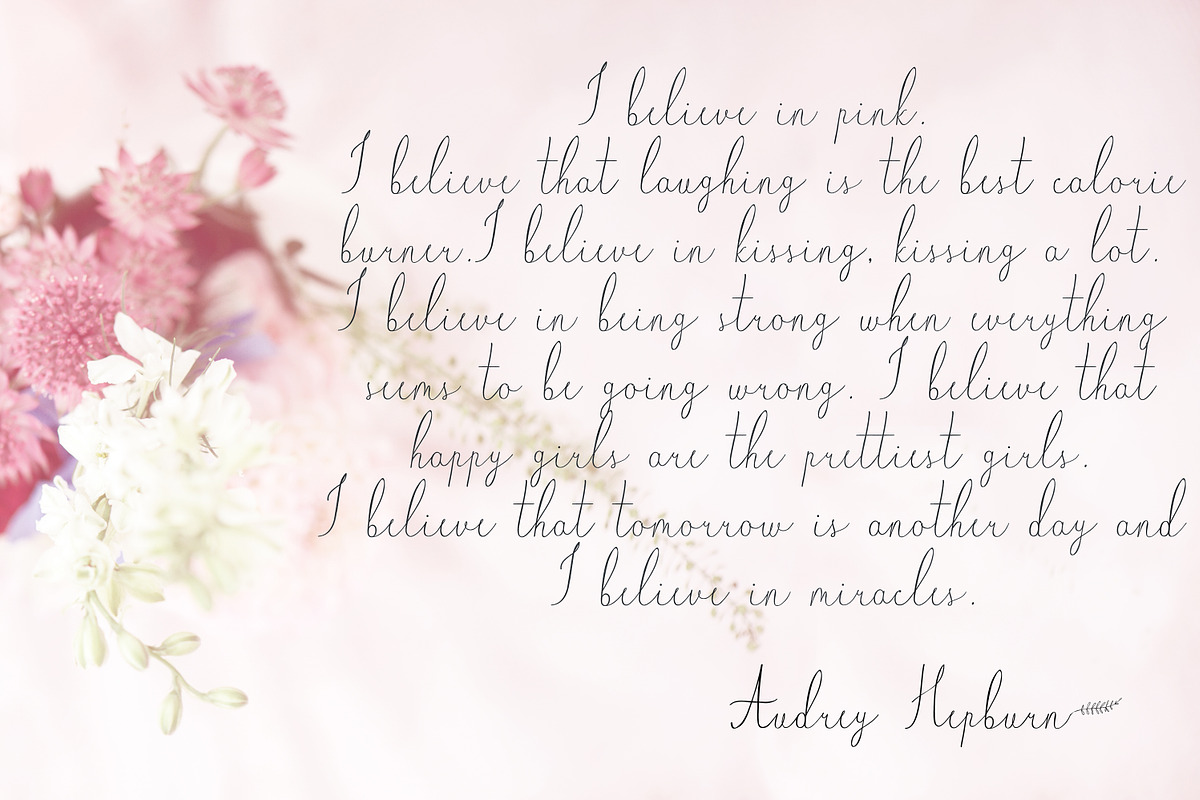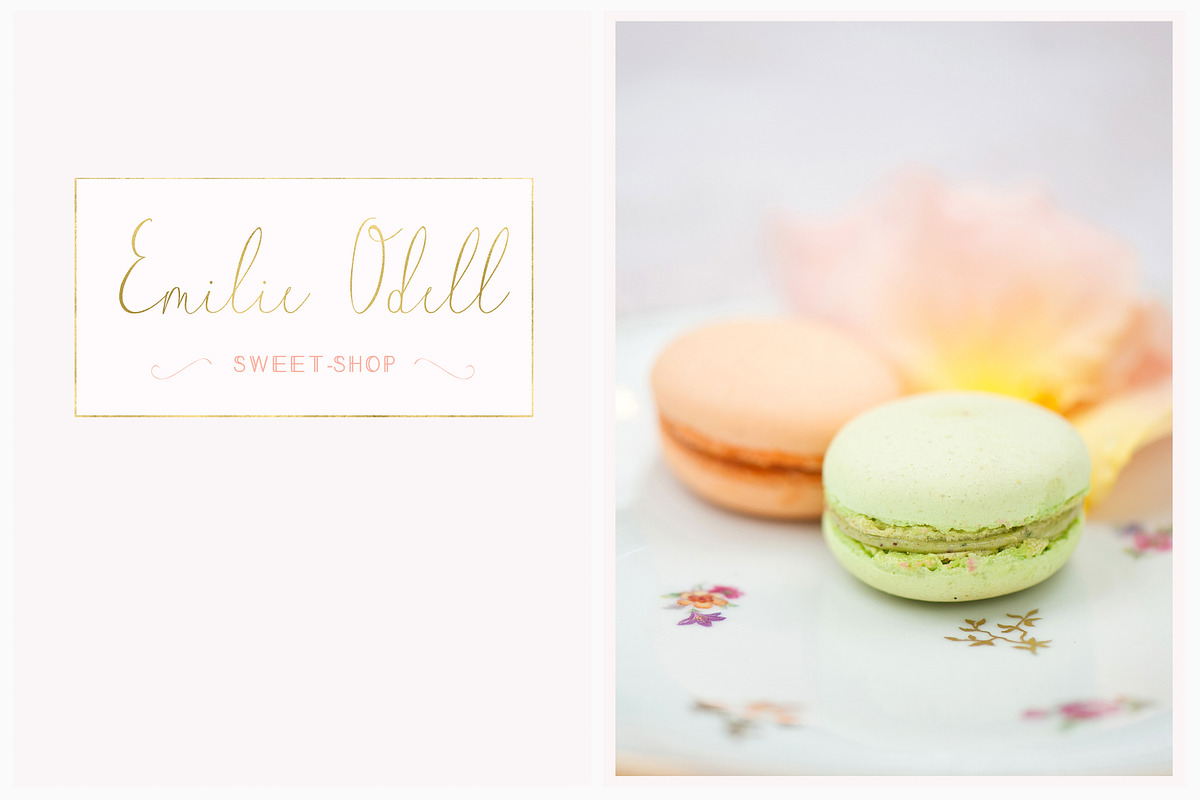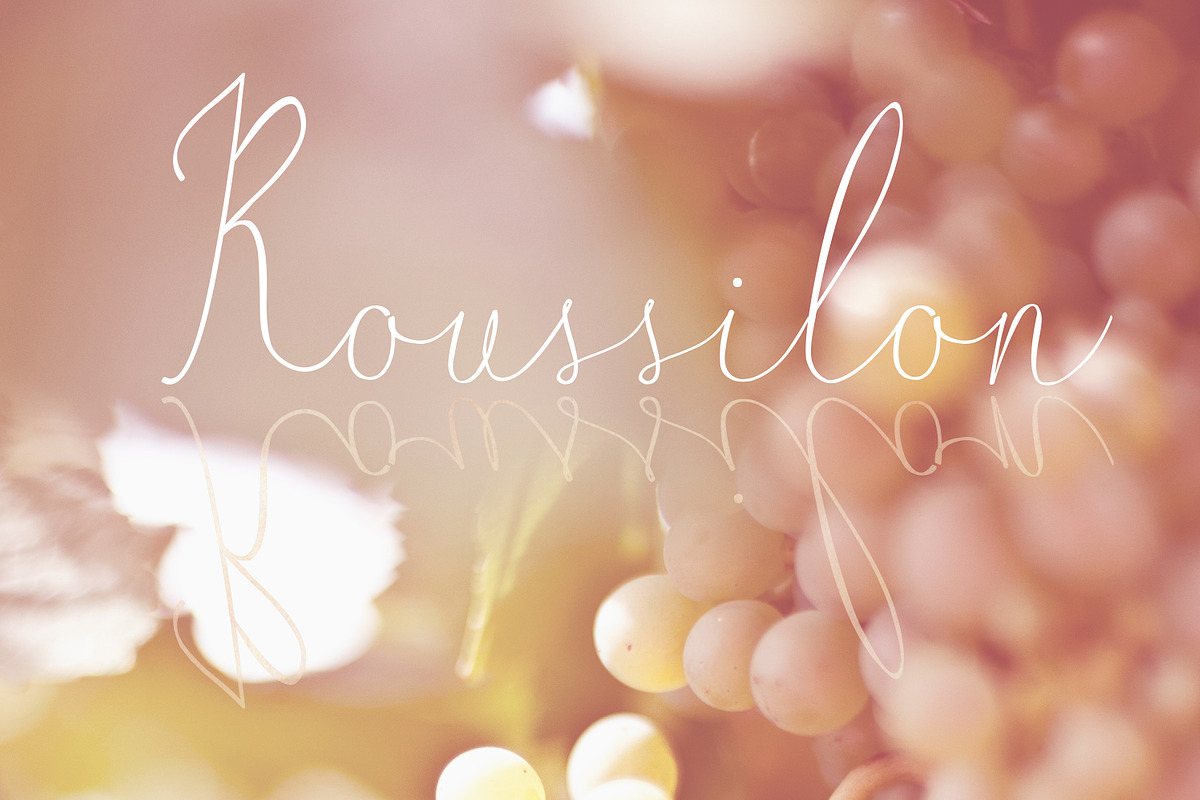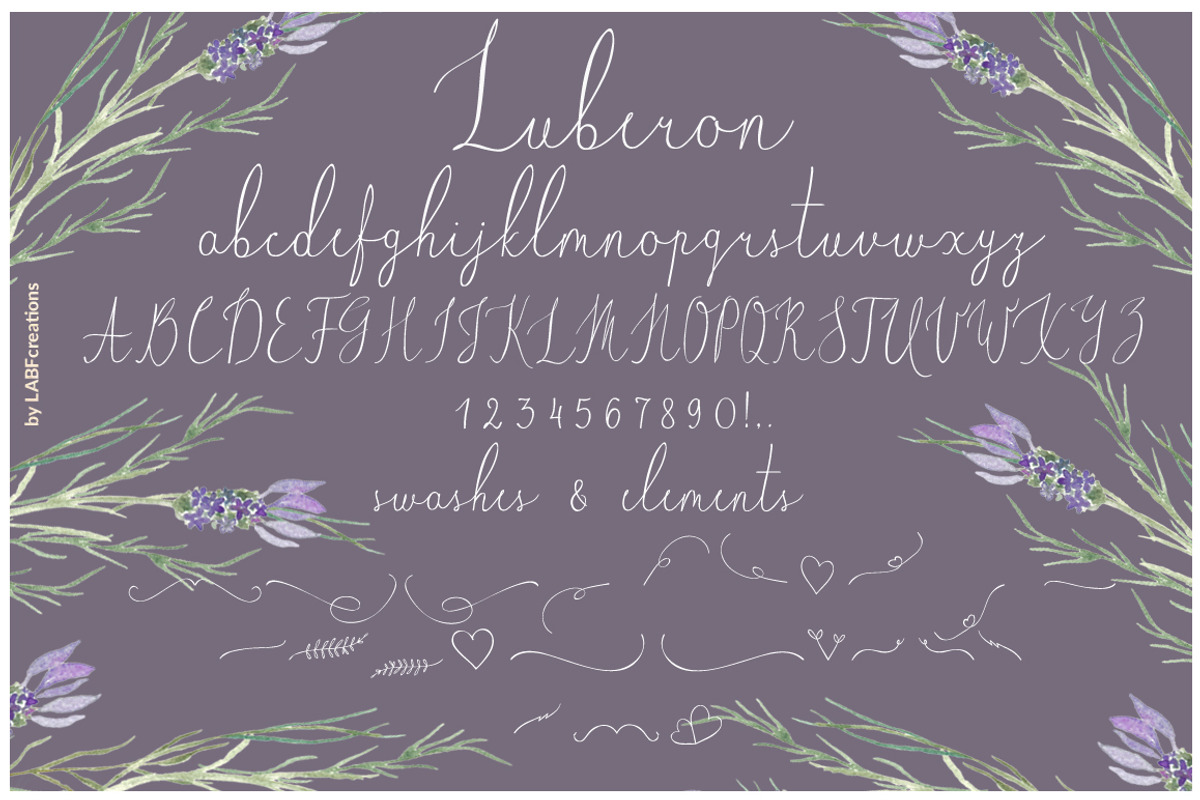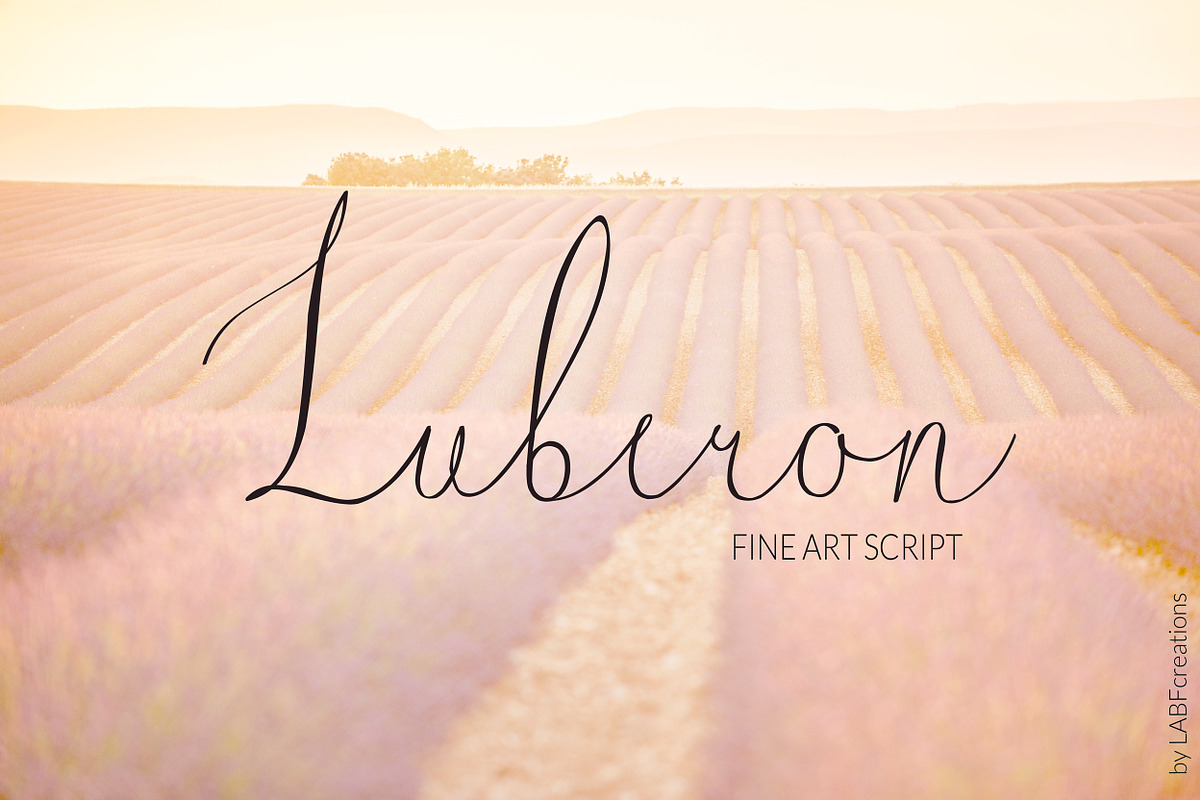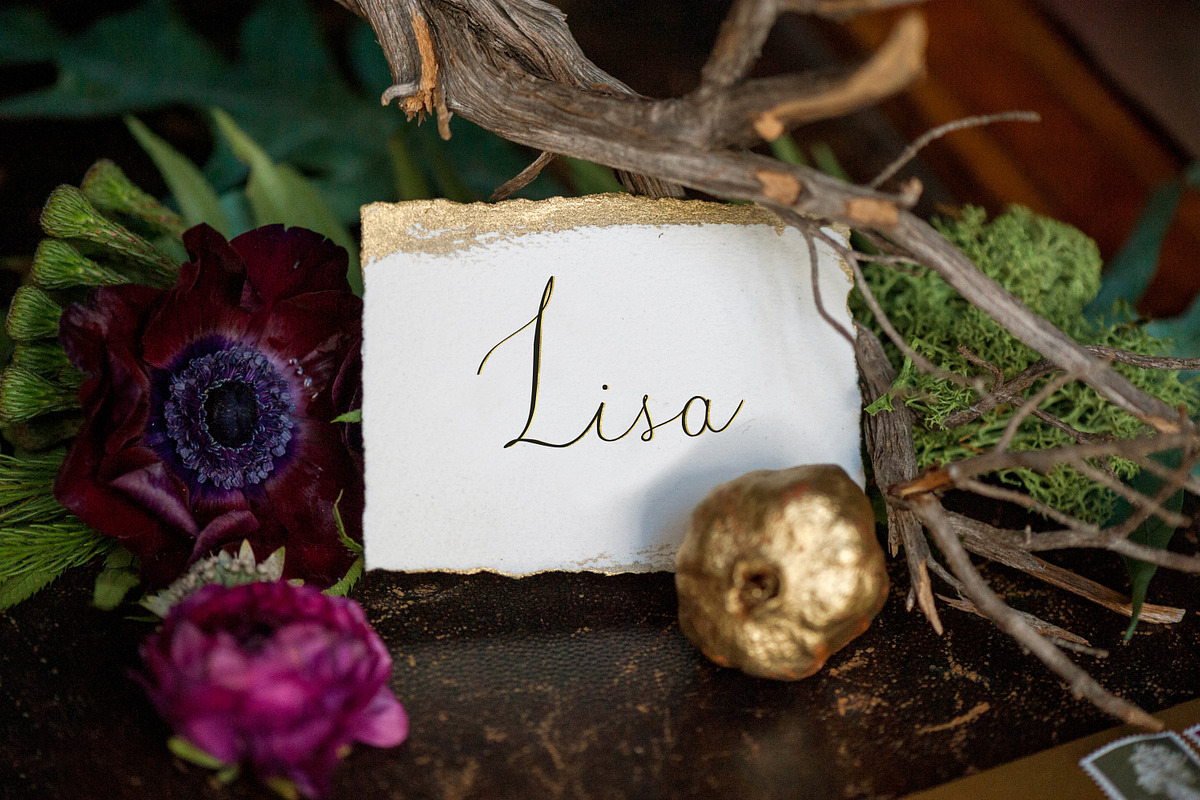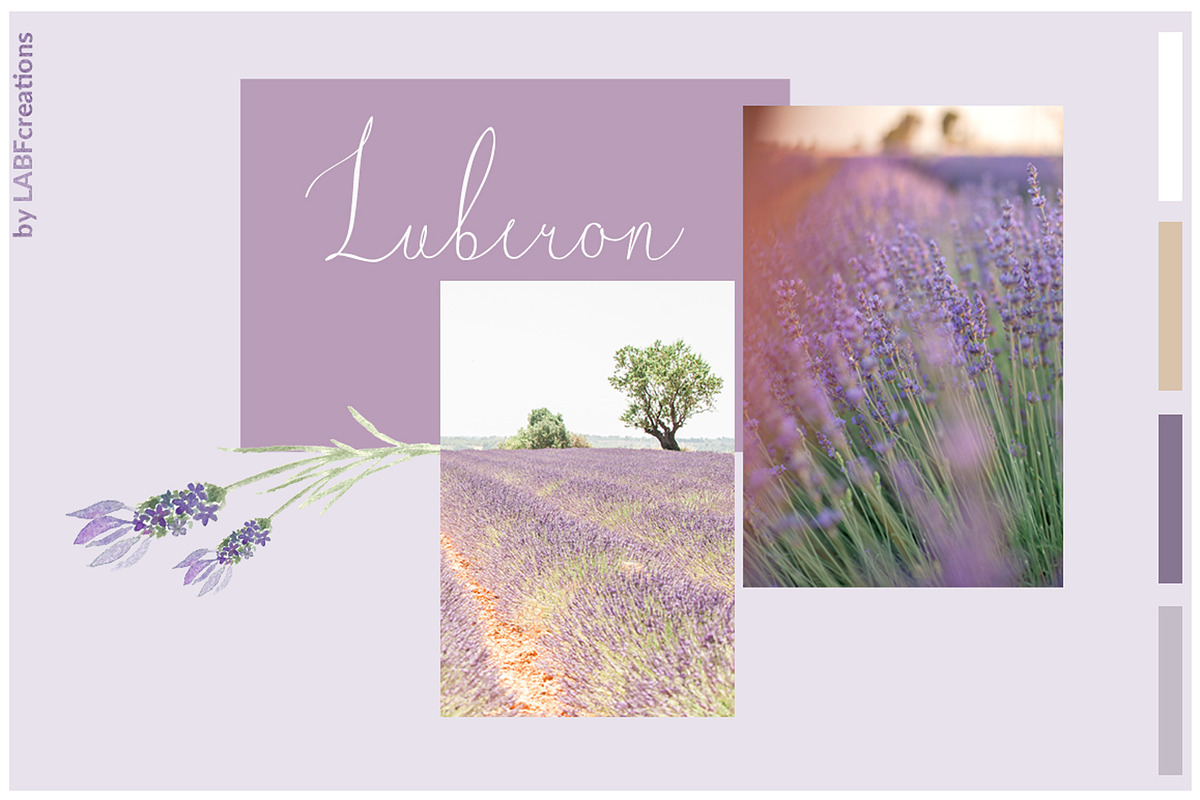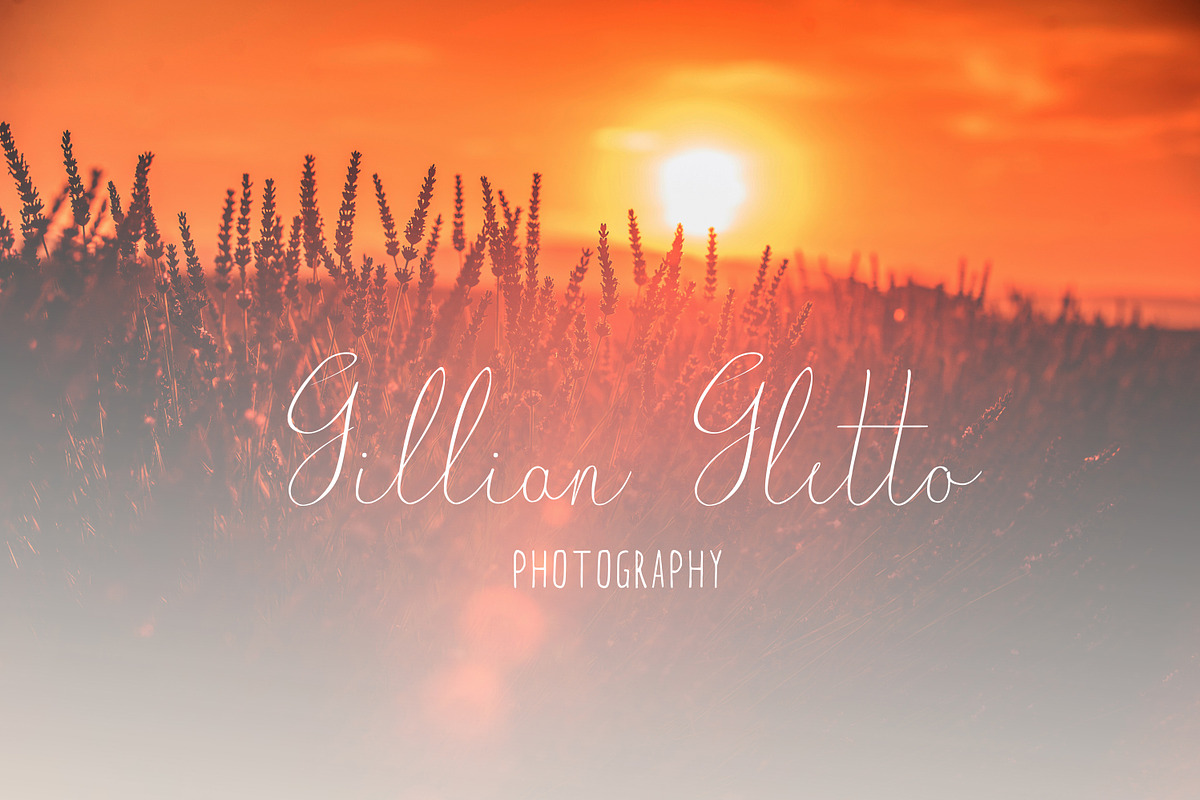
Luberon. Fine art Font.
Luberon. An original FINE ART typeface. This is modern calligraphy typeface chic and romantic, but inthe same time with the touch of vintage. You can use it for branding, wedding invitations, cards, logo, blog, photography, .
Luberon includes full set of gorgeous uppercase and lowercase letters, a large range of punctuation and ligatures,numerals. Using Luberon Swashes for lowercase letters you will add original and elegant touch to your letternig. You will recieve: Luberon OTF Luberon TTF Luberon WOFF
Swashes for lowercase letters: